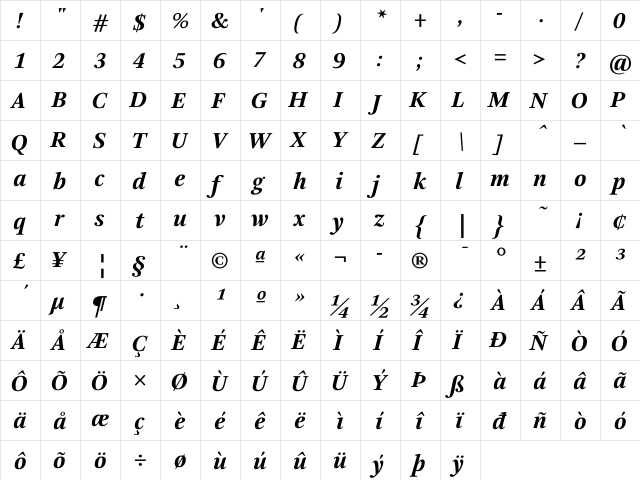
Arnhem Bold Italic
Design Context for Arnhem Typeface
Arnhem is a composed and adaptable typeface that performs quietly and consistently across a wide range of design contexts. The slanted form adds forward momentum and visual energy. The heavy weight commands attention and anchors typographic hierarchies.
Pro Tip: Use Arnhem for emphasis, pull quotes, and subheadings where its slanted energy can add rhythm to the layout.